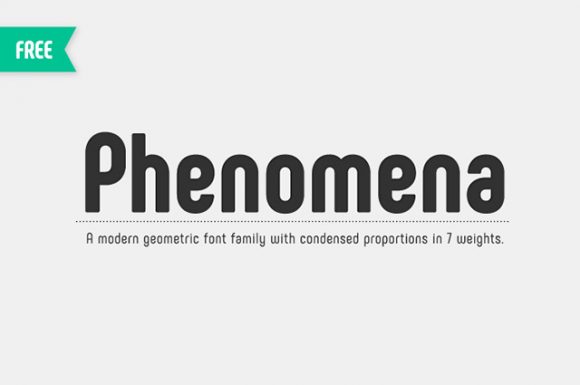
Phenomena Font
Phenomena: A free font family in 7 weights
Phenomena is a free font family based on round geometric shapes designed by Radomir Tinkov and Plamen Motev. It includes 7 different weights and more than 500 glyphs with a wide range of languages (extended Latin, Cyrillic, Bulgarian, etc.).